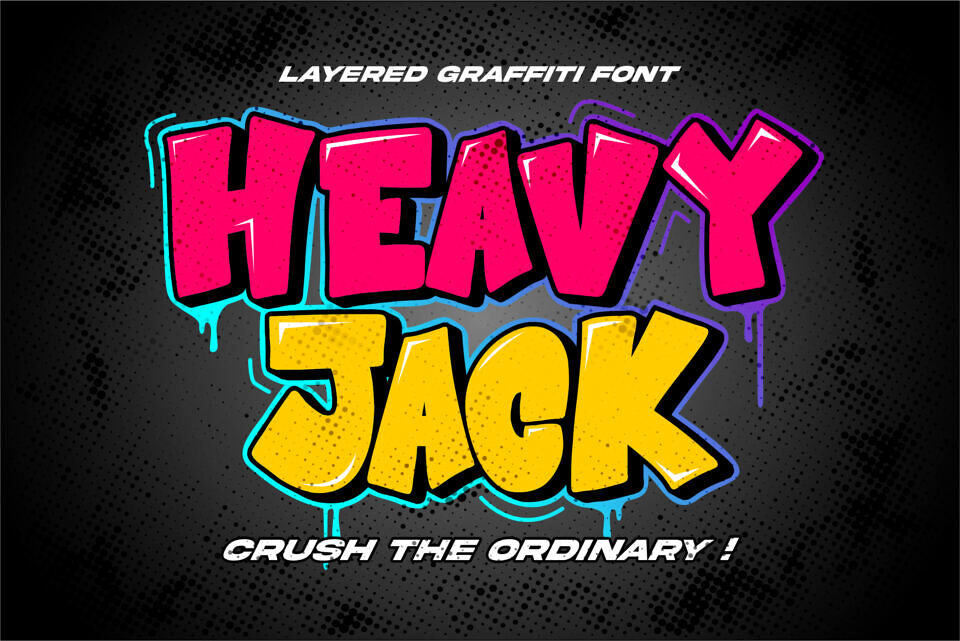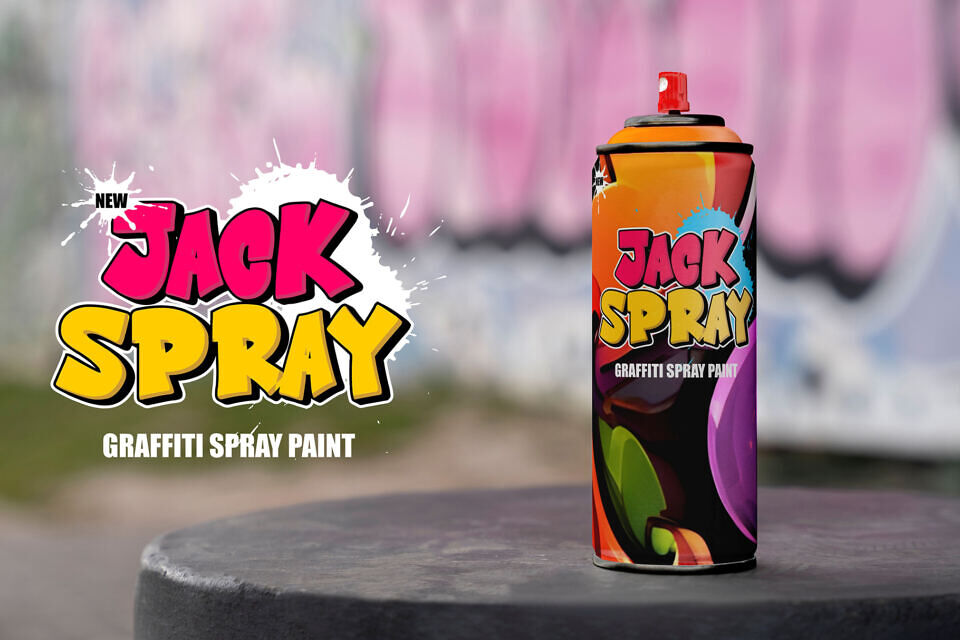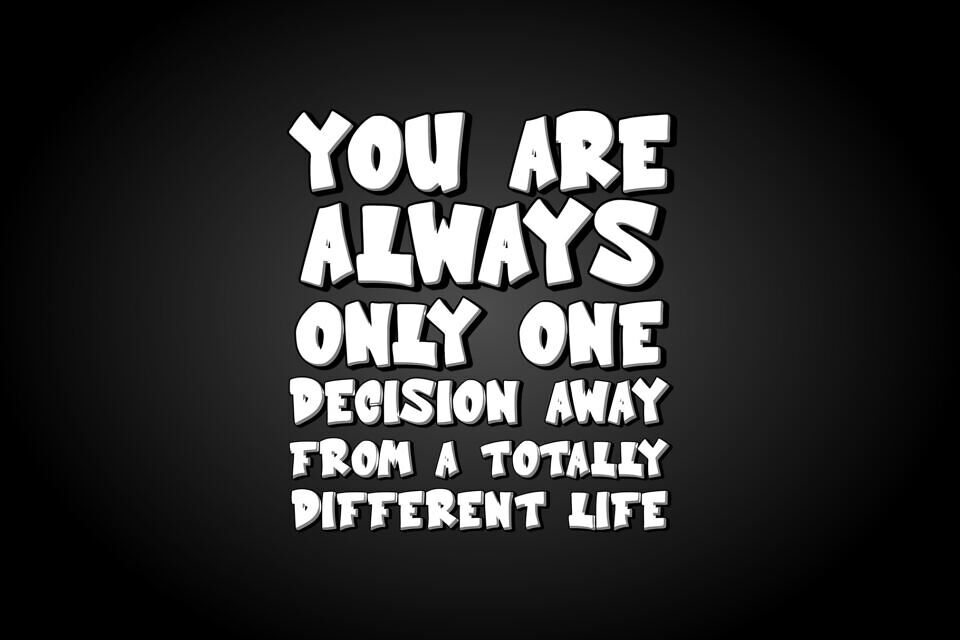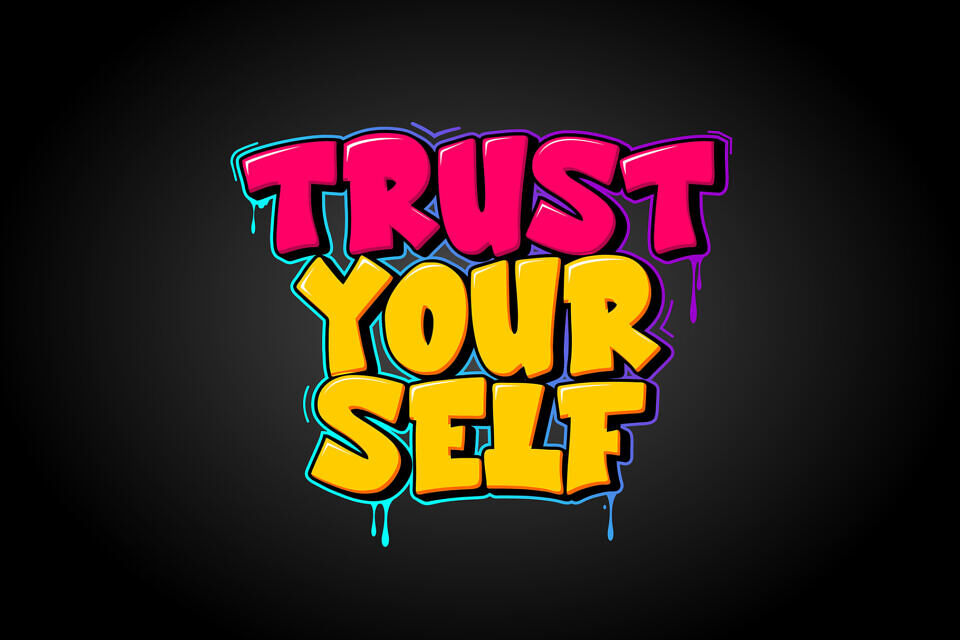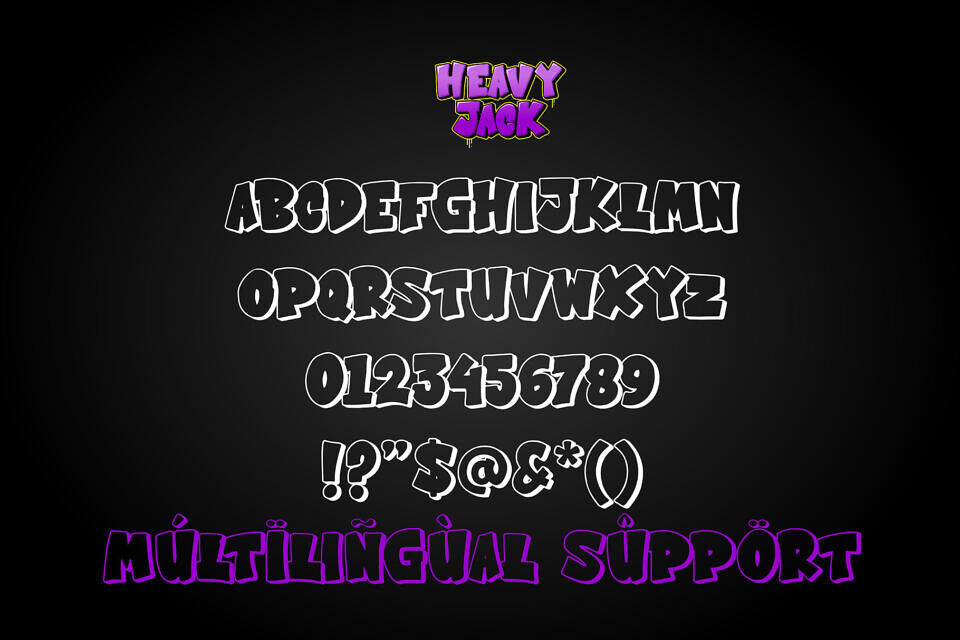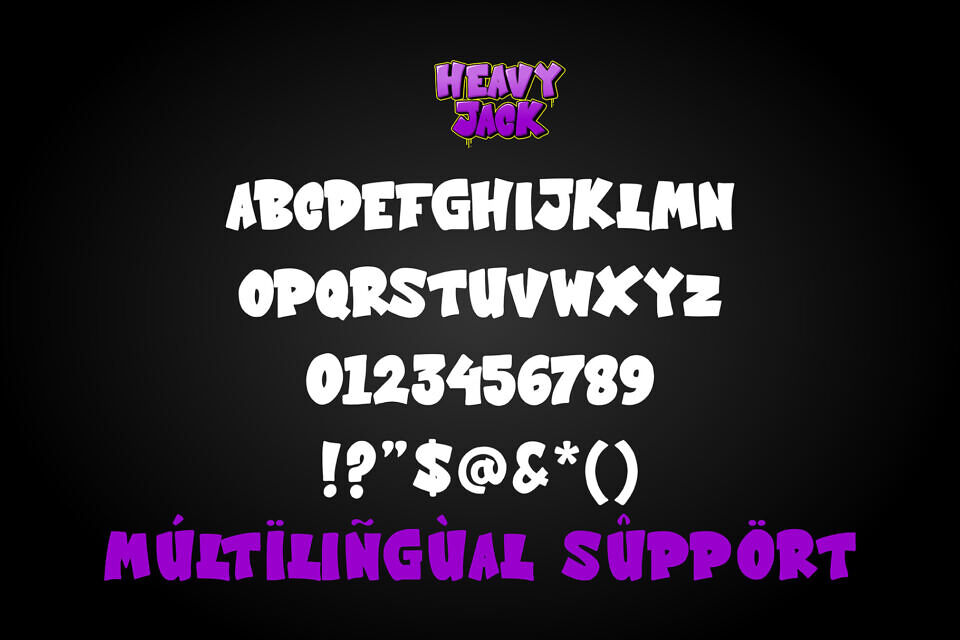
Heavy Jack Font
Heavy Jack is a striking layered graffiti font crafted for designers seeking urban energy and fearless expression. With bold all-caps lettering and a layered shadow style, it delivers depth, texture, and a powerful three-dimensional effect.
Perfect for street art branding, hip-hop posters, skateboarding apparel, music covers, and underground event flyers, Heavy Jack captures the raw spirit of graffiti walls and urban culture. This dynamic layered graffiti font ensures every headline, logo, and design commands attention with bold rhythm and authentic street style.